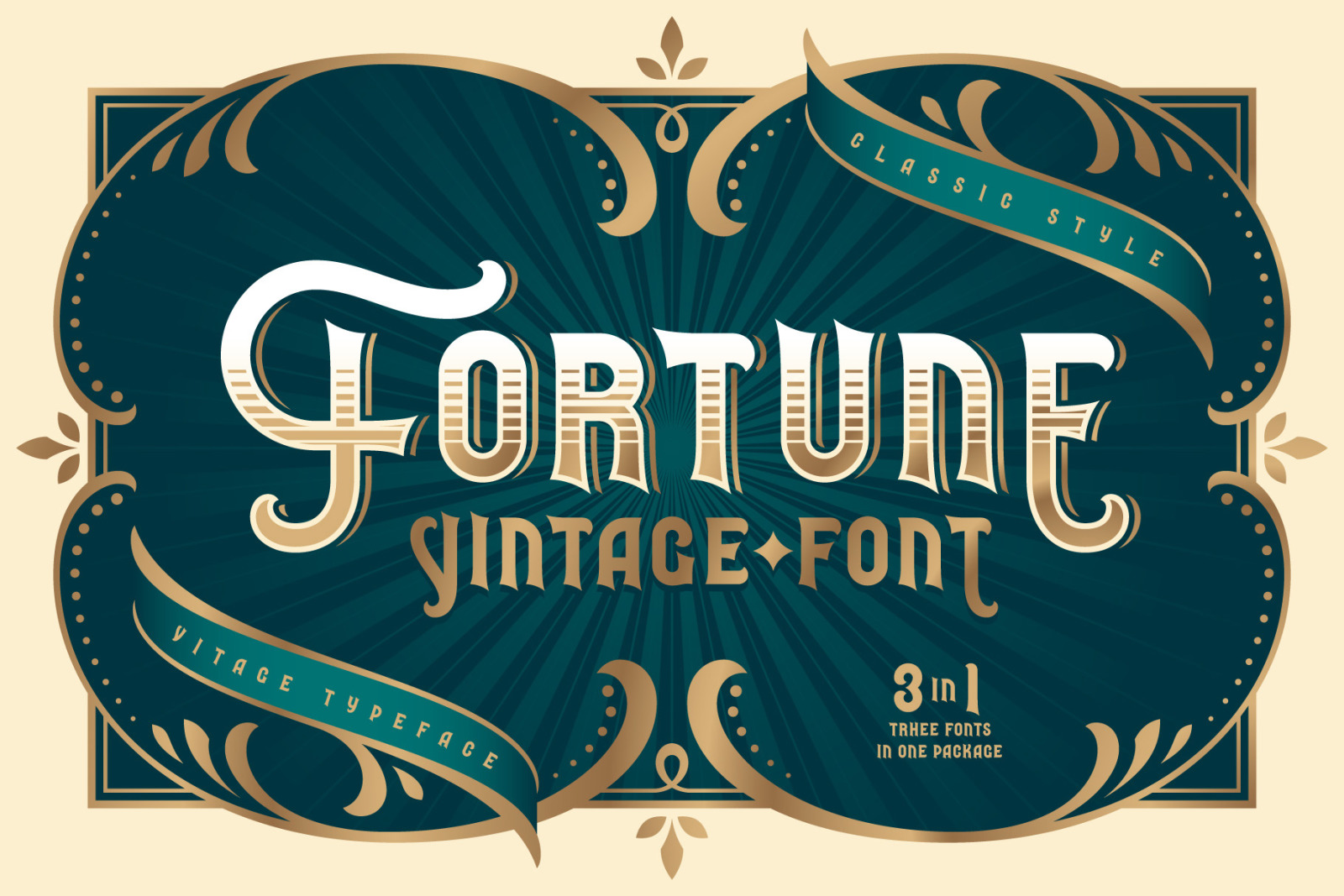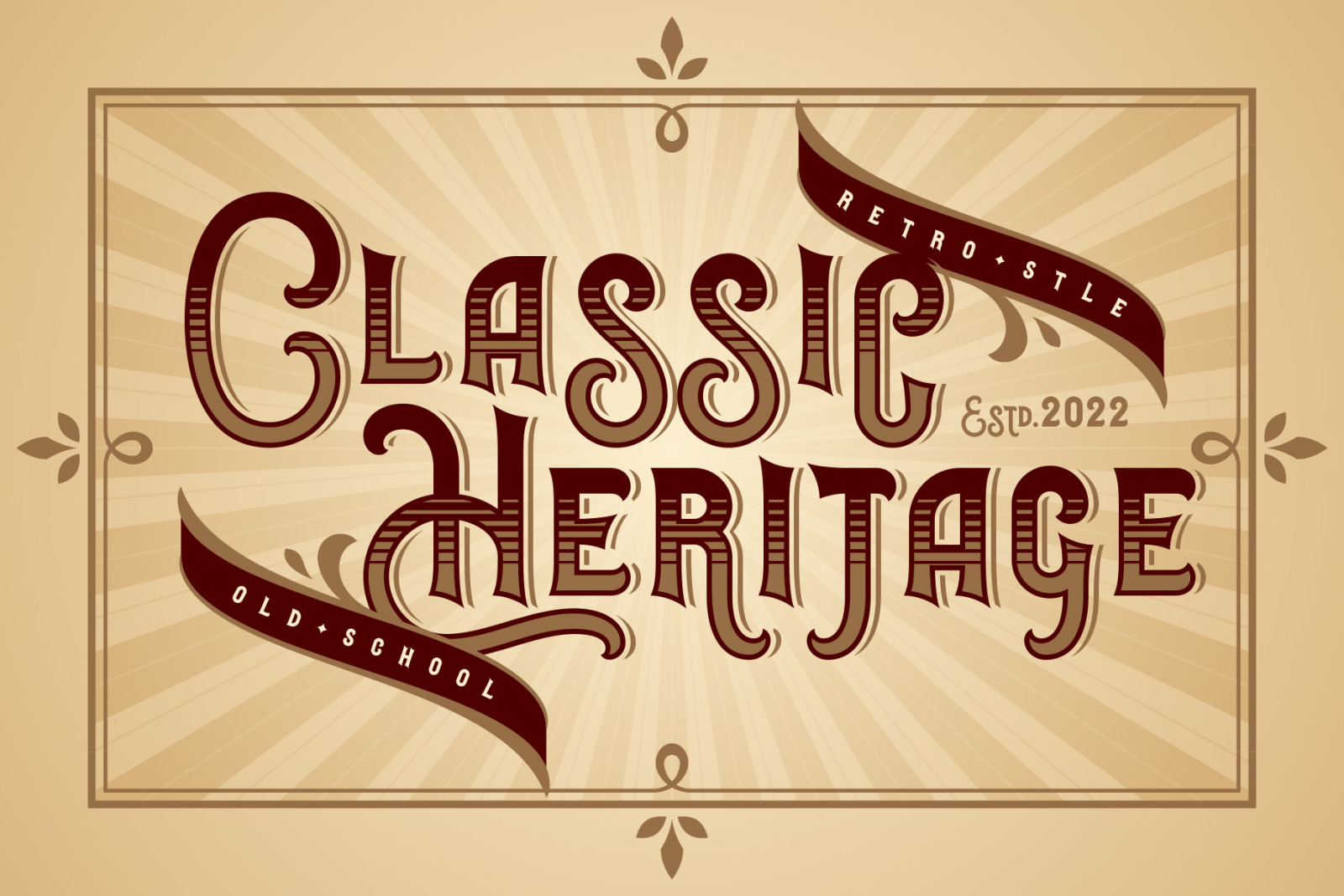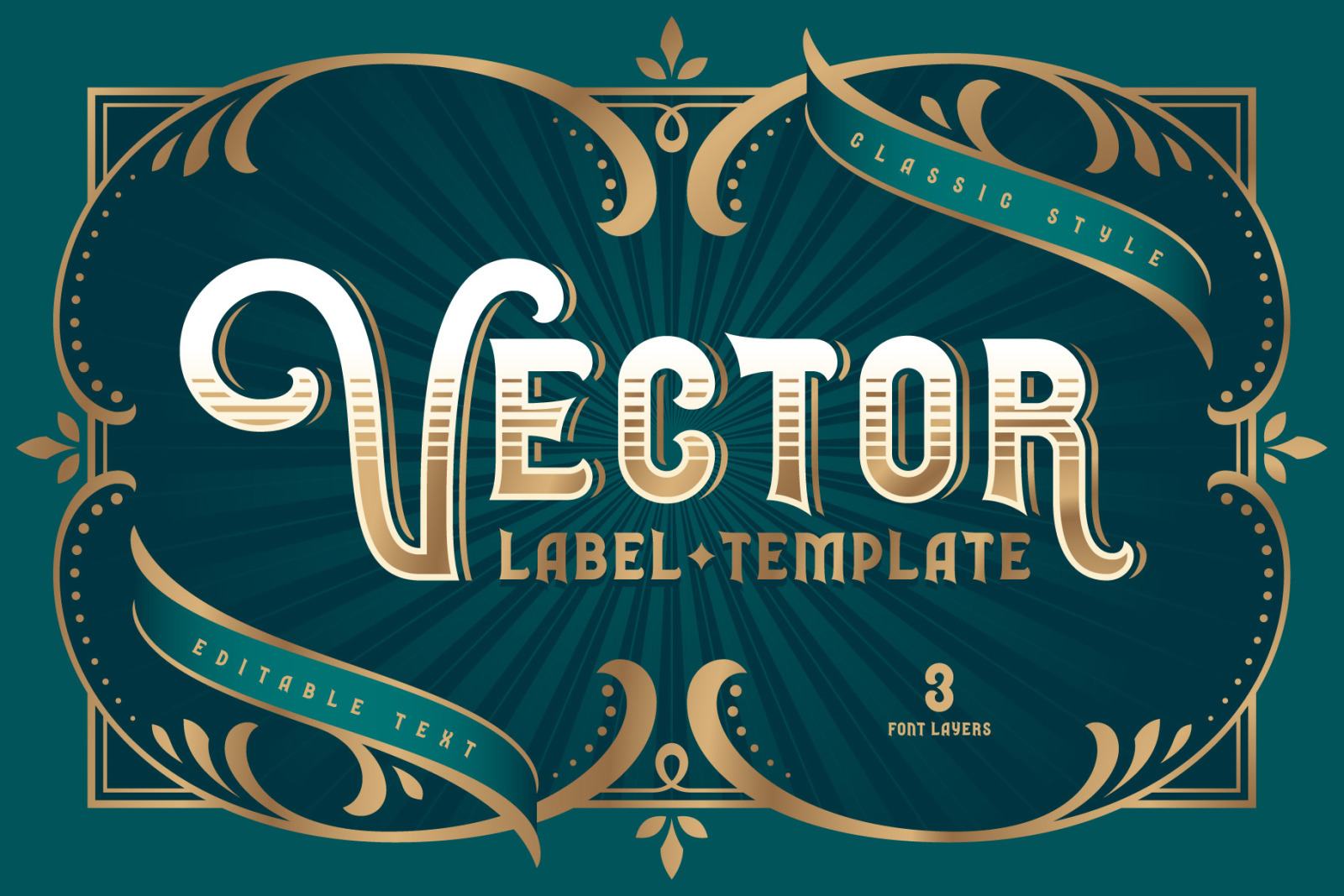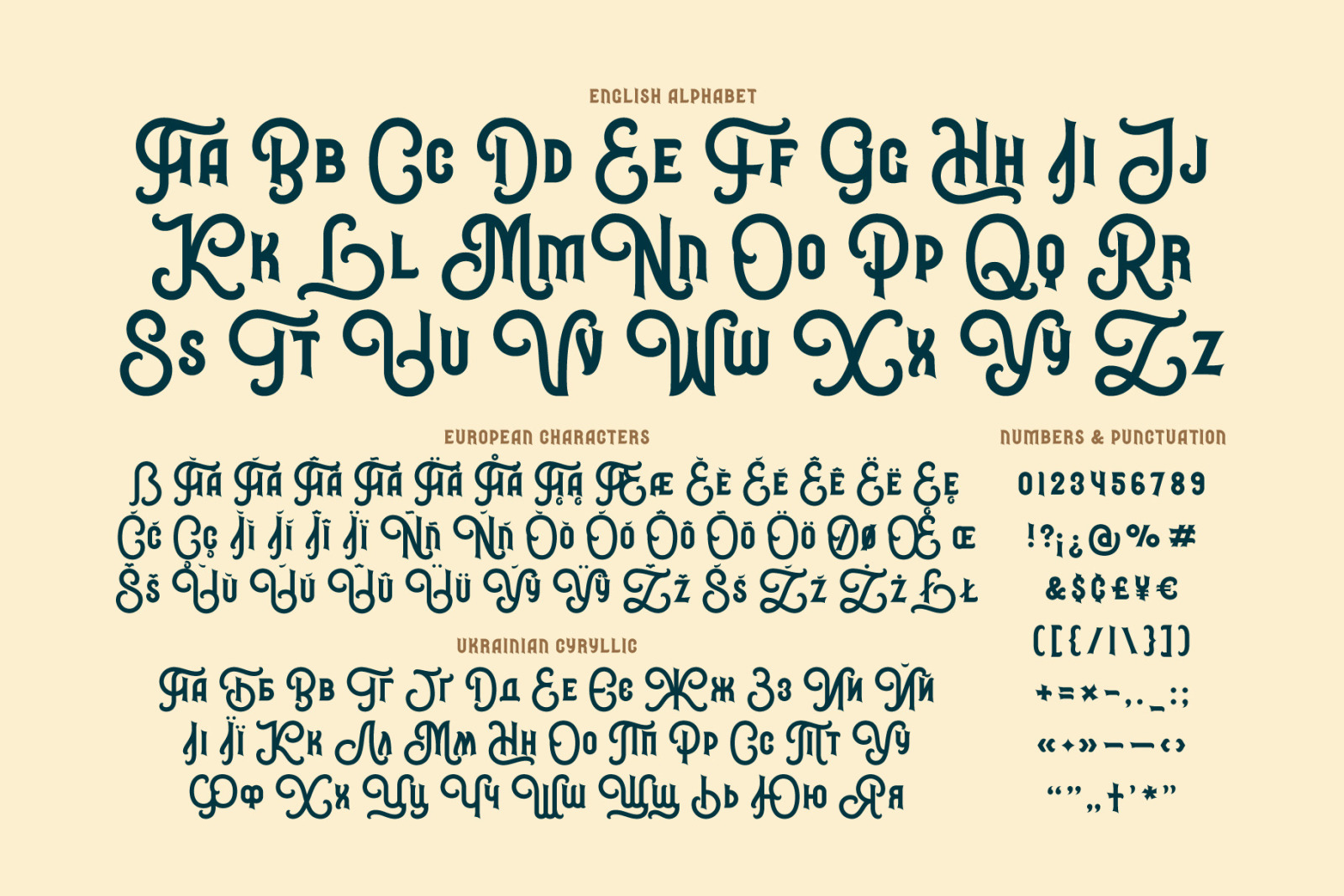
Fortune Vintage Font
Introducing Fortune Vintage Font set. This typeface has an old school look with classic western shapes. Fortune Vintage Font has three "layers" for more convenient recoloring. All of the small letters has one or two alternates with bottom expanded shape*. Fortune Vintage Font supports most of the European languages and also has Ukrainian Cyrillic characters.
Also you will get an editable vector design template with decorative ornate!